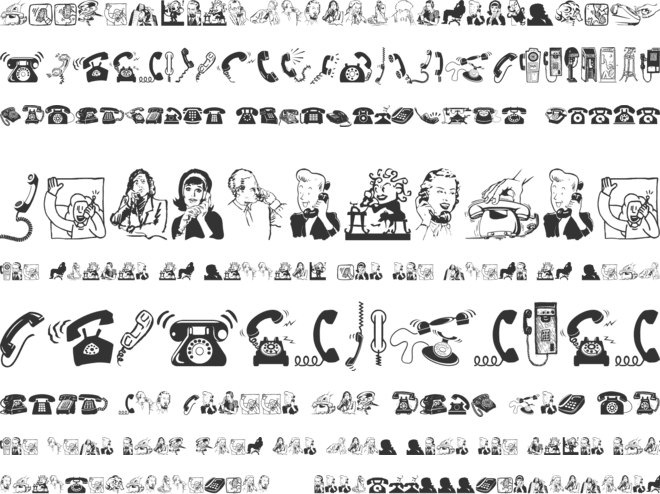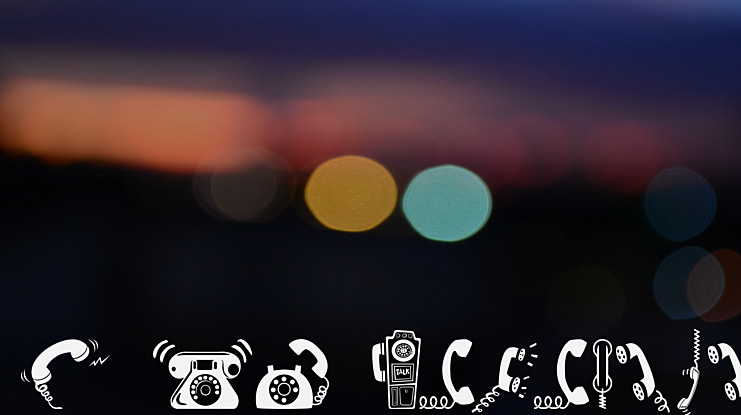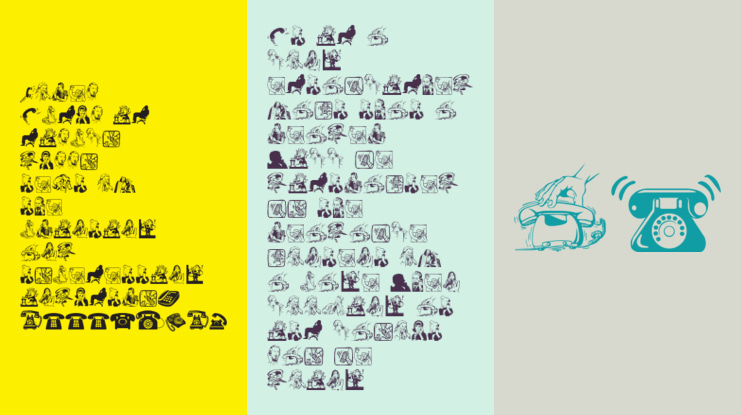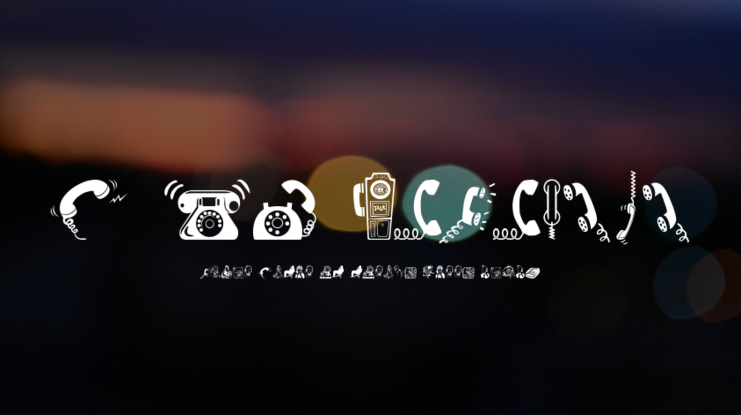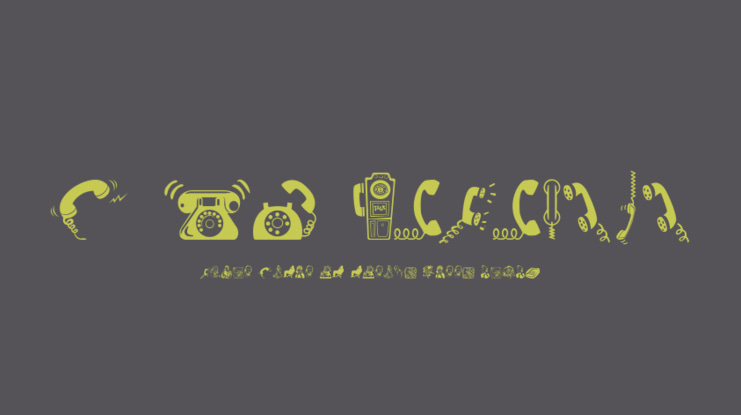
I AM TELEFONO Font
Fernando Haro
Telephone icons collection sorted by style, type or form. As a graphic designer I have collected for years and now phone symbols converted into line art I have compiled a symbol font.